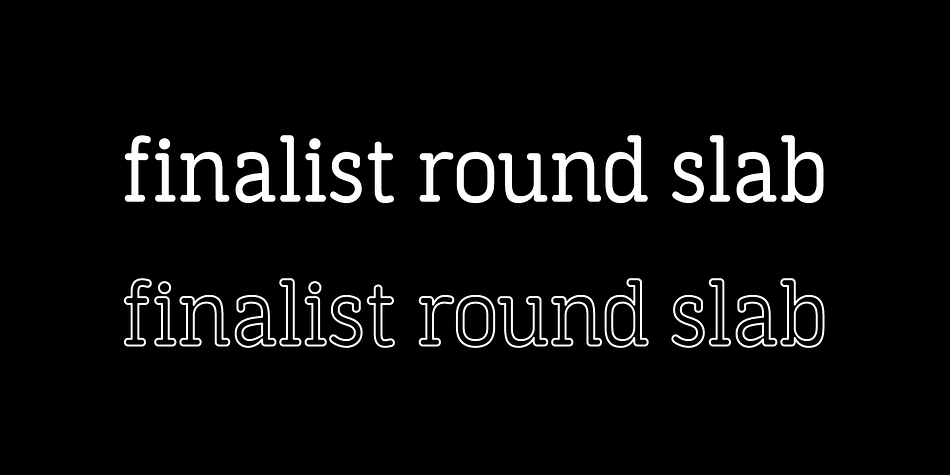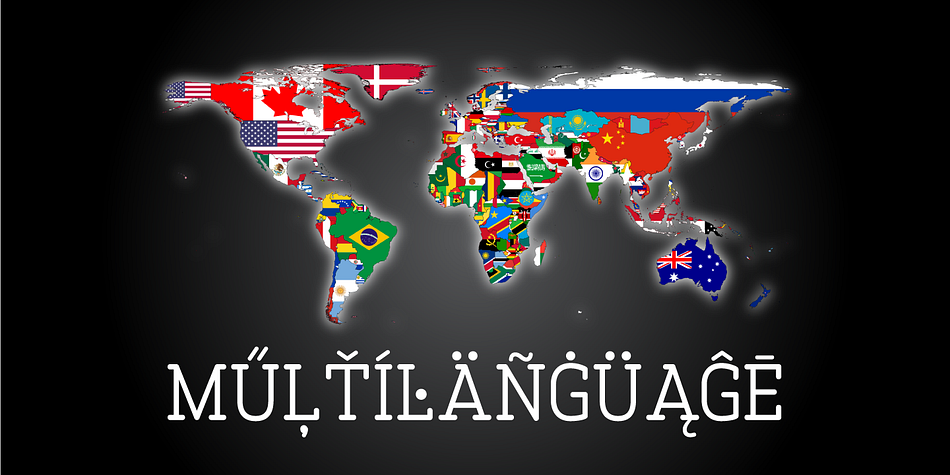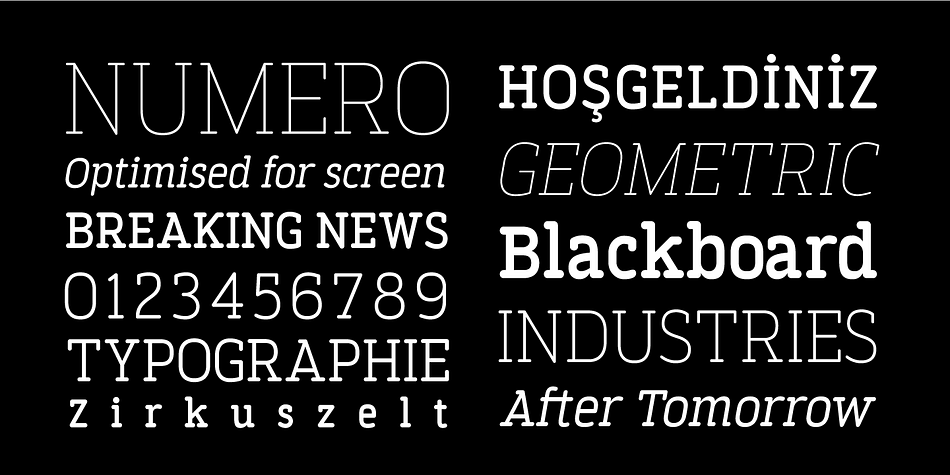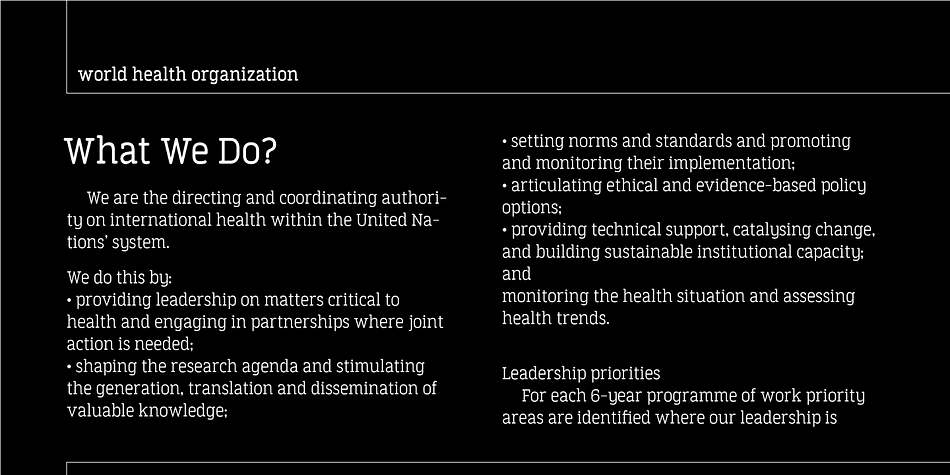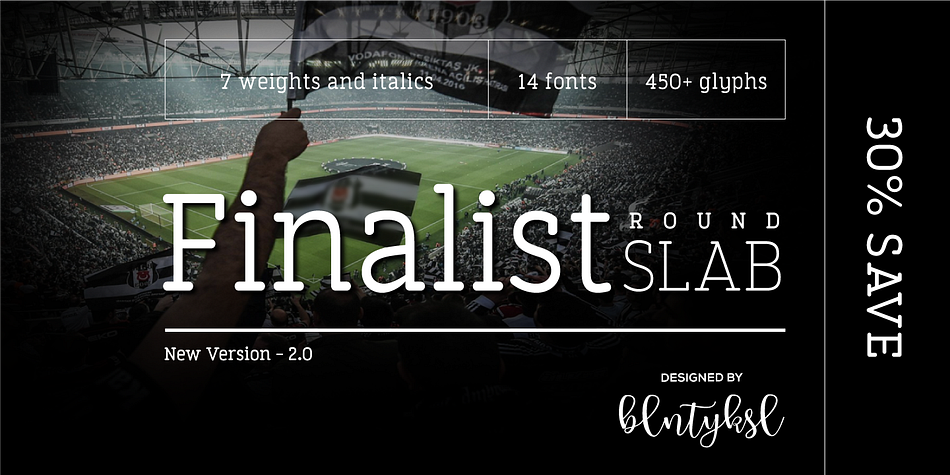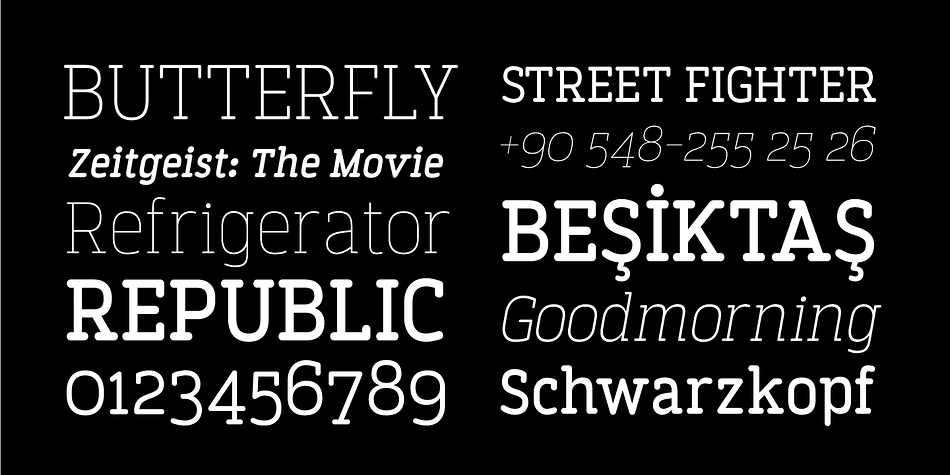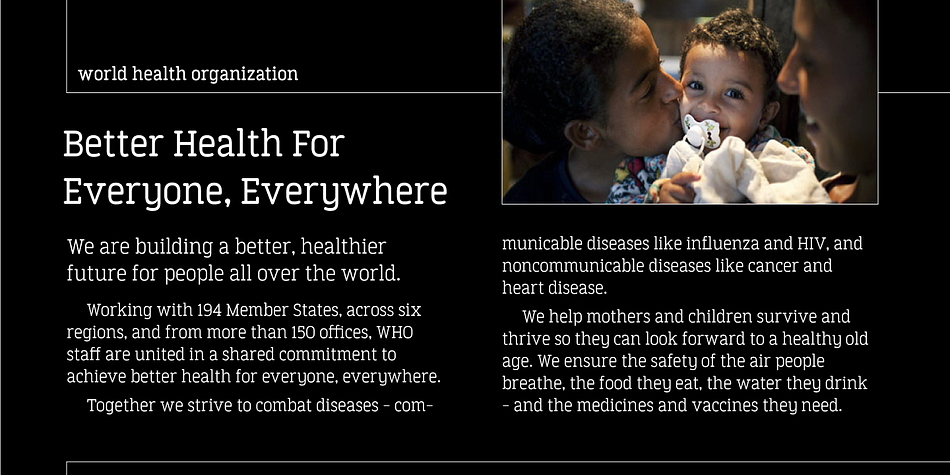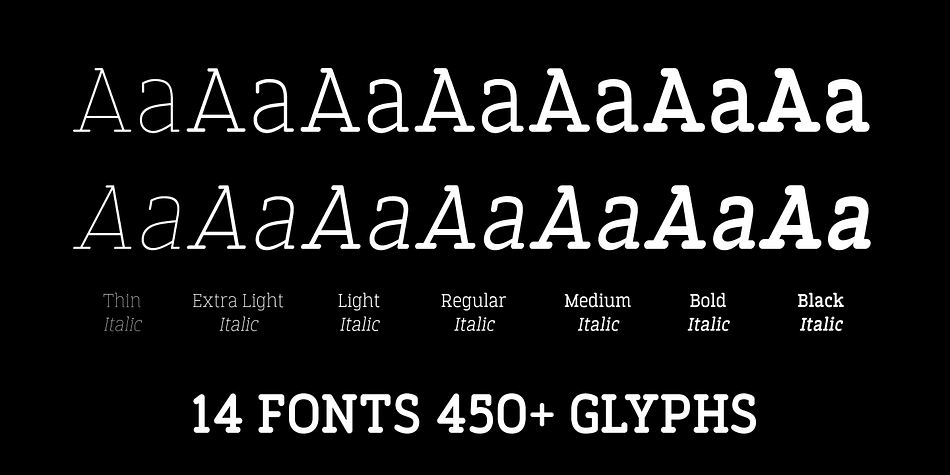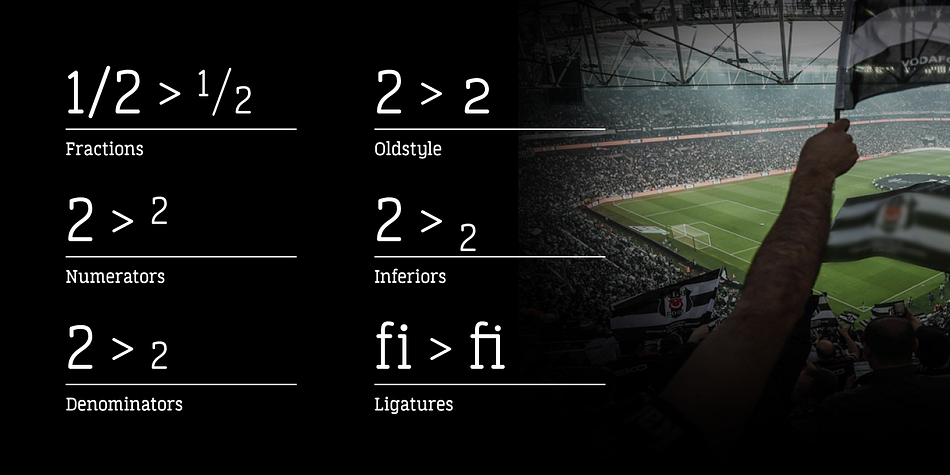
Finalist Round Slab is a slab serif font family. This typeface has fourteen styles and was published by Bülent Yüksel.
The font was intended primarily to have a stronger body. It has a simple geometrical surface. This font has a strong personality, that makes it perfect for use in headline sizes but means it also works gracefully within text blocks.
“Finalist Round Slab” is carefully crafted and a unique slab serif. Use for websites, print, motion graphics, logo design, packaging design, t-shirts and more.
The designation “Finalist Round Slab Regular” forms the central point. The first figure of the number describes the stroke thickness: Thin to Black. “Finalist Round Slab” comes 7 weights and italics total 14 types. The family contains a set of 450+ characters.
Case-Sensitive Forms, Classes and Features, Fractions, Superior, Inferior, Denominator, Numerator, Old Style Figures just one touch easy In all graphic programs.